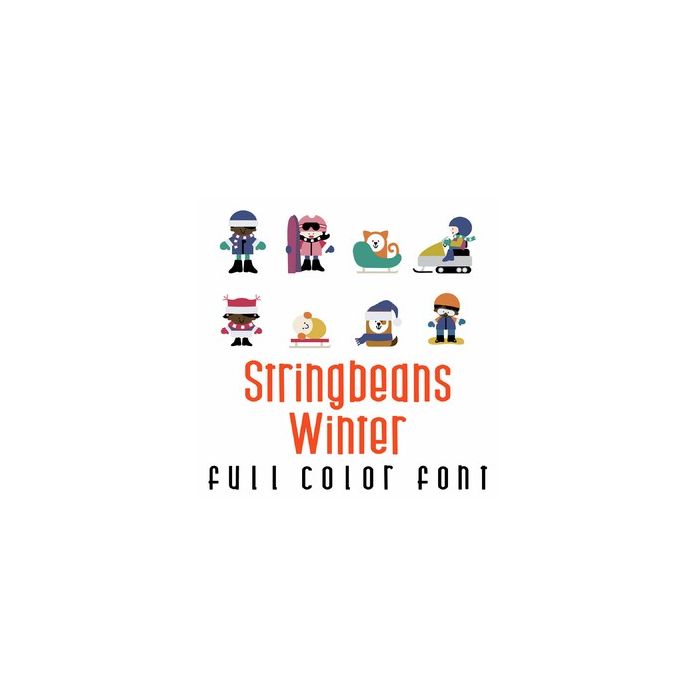
This fun full-color doodlebat font features 52 adorable stringbeans ready for Winter sports. Perfect for cards, crafts, gifts, scrapbook pages, planner stickers, and more! 52 characters, uppercase is white skin, lowercase is brown.